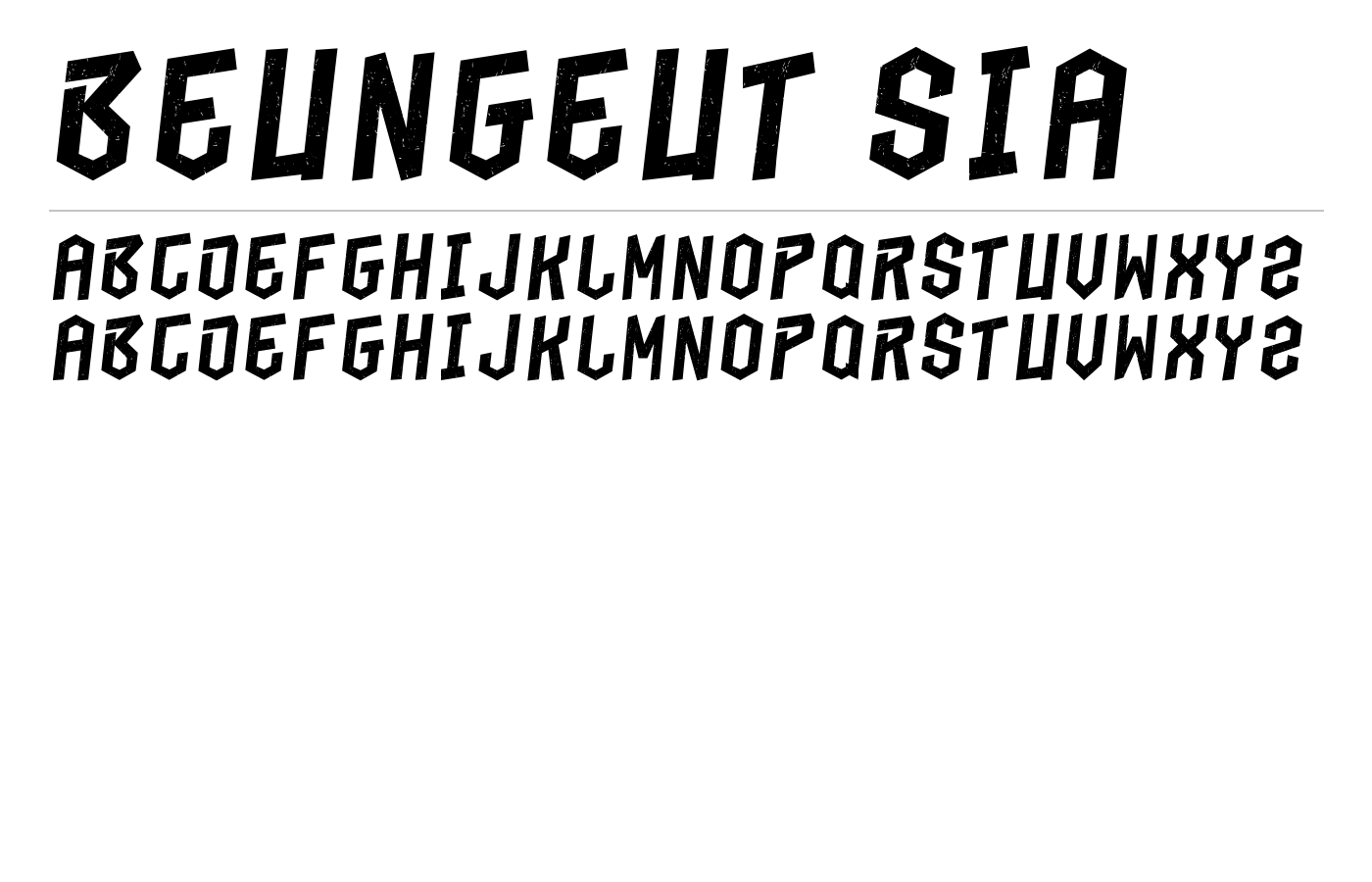
Beungeut Sia is a bold, condensed sans serif font with a rough, distressed texture that gives it a strong, edgy character. Its angular, geometric letterforms and tall x-height create a dynamic, slightly aggressive feel, perfect for impactful headlines or branding that aims to convey energy and uniqueness. This font works best for posters, logos, or any design needing a striking, modern look with a handcrafted, gritty vibe.
Beungeut Sia Font
About Beungeut Sia Font
| Font family | Beungeut Sia Font |
| Designer | Riskiansyah Ilyas |